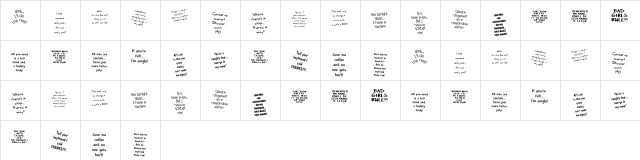
KR Bad Girlz Regular
Design Context for KR Bad Girlz Typeface
KR Bad Girlz is a composed and adaptable typeface that performs quietly and consistently across a wide range of design contexts.
Pro Tip: Use KR Bad Girlz in both headline and body roles to test its range before committing to a single application.